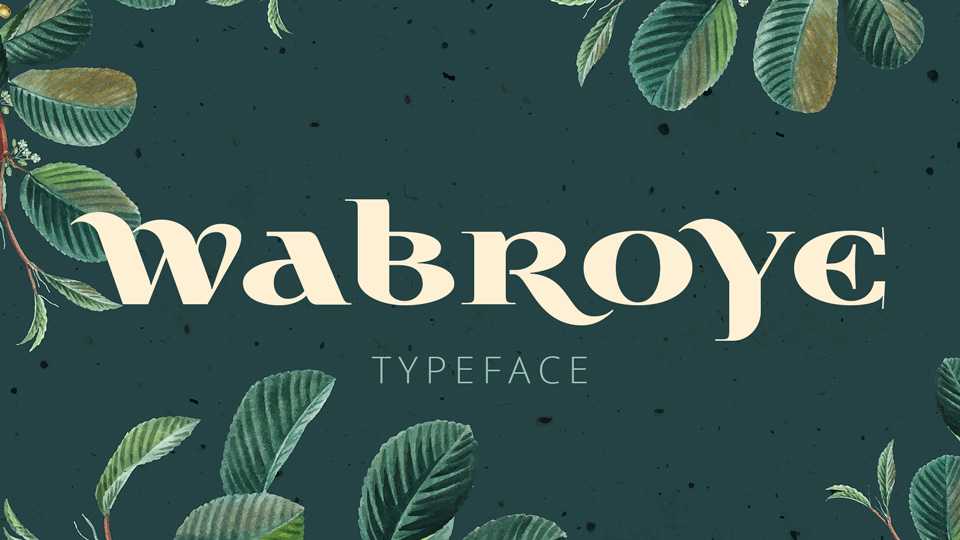
Download Wabroye font, a fancy decorative serif typeface with high contrast characters. Wabroye font is perfect for logos, fashion, wedding design, social media and more.
Designer: Grzegorz Luk